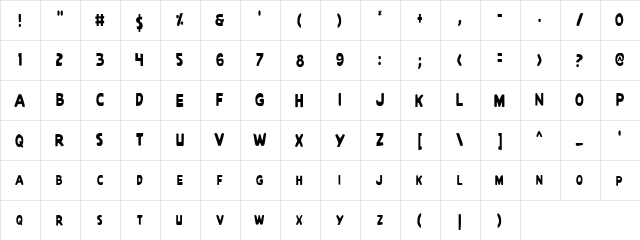
Quartermain Condensed Condensed
Design Context for Quartermain Condensed Typeface
Quartermain Condensed takes a measured approach to typography — its balanced proportions and neutral character make it a reliable workhorse for both digital and print work. The condensed width makes it efficient for tight spaces without sacrificing legibility.